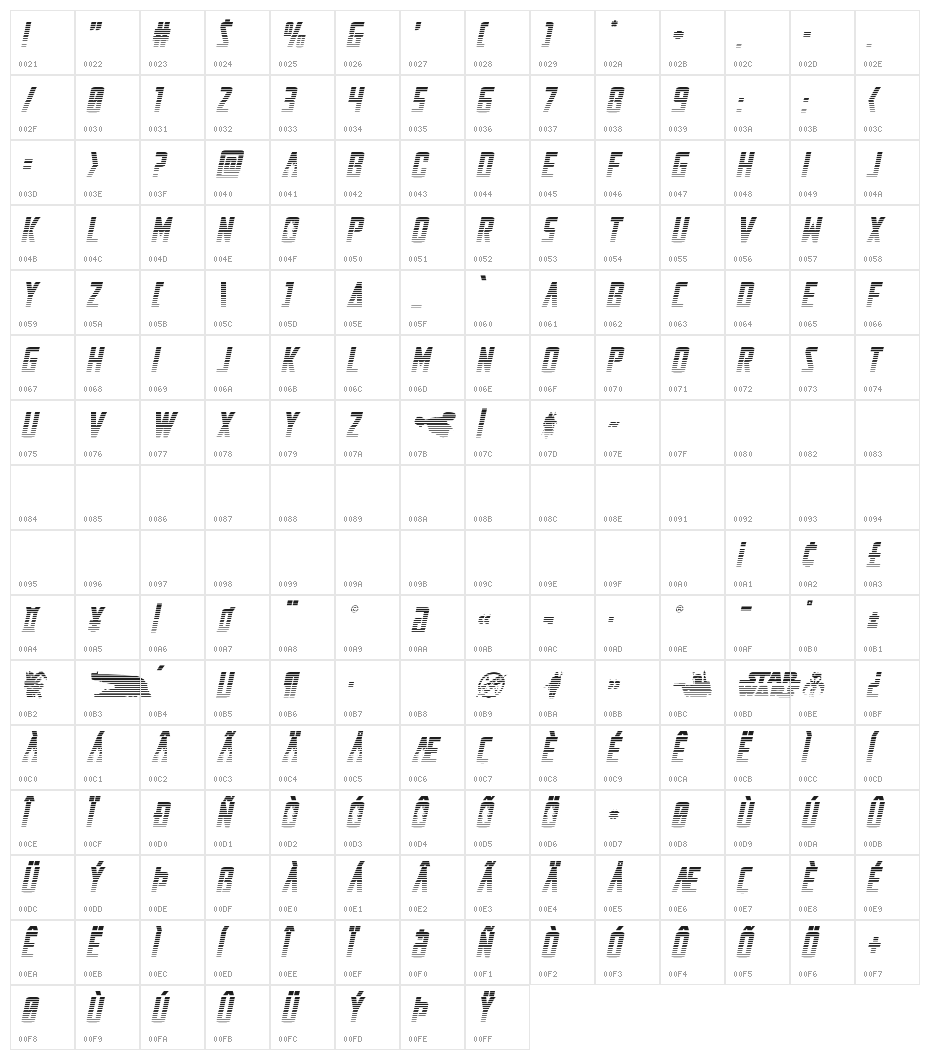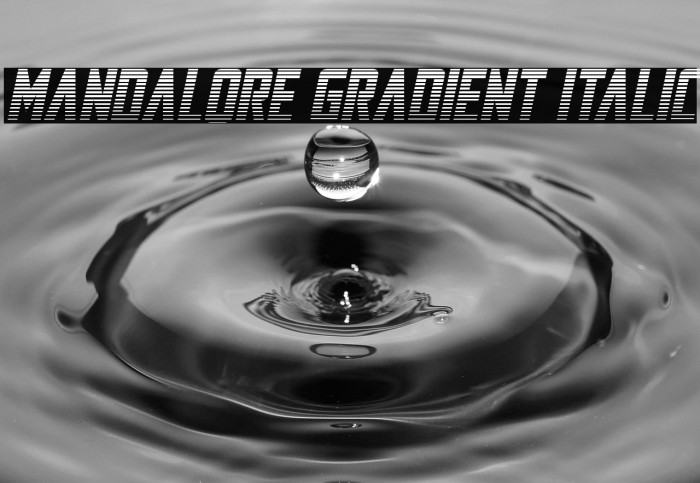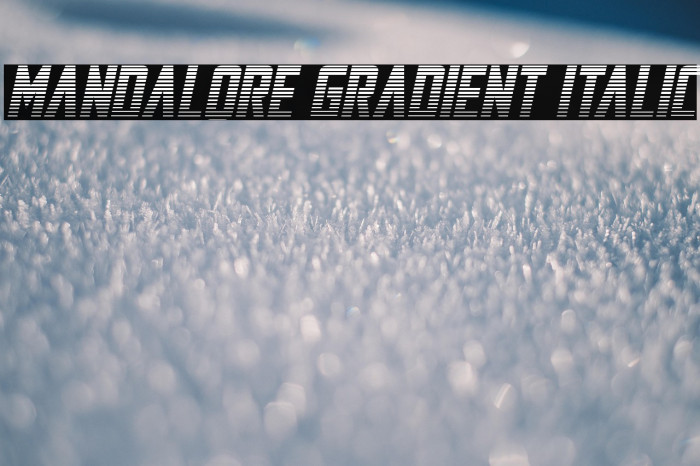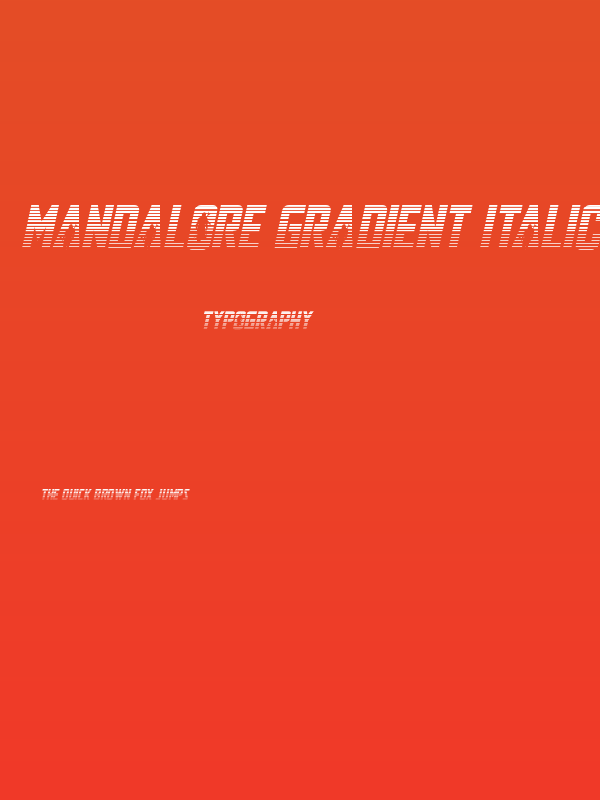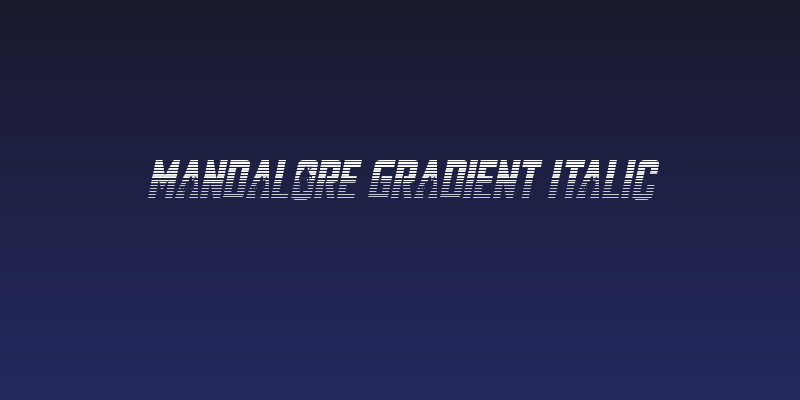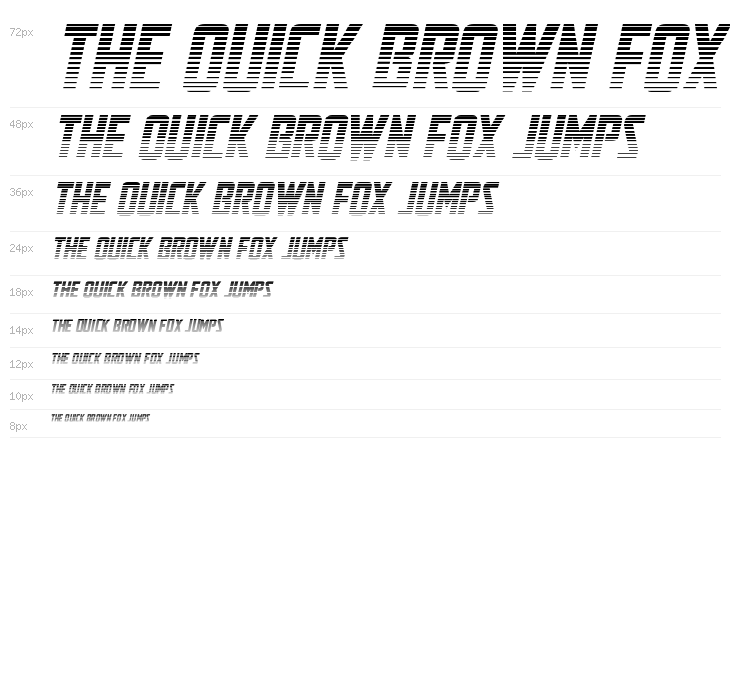
Mandalore Gradient Italic Font
Mandalore Gradient Italic Description
This font features a bold and dynamic design with a distinct gradient effect that gives it a futuristic and high-tech appearance. The italicized style adds a sense of motion and speed, making it ideal for projects that require a modern and energetic look. The characters are constructed with horizontal lines that create a striped pattern, enhancing its unique visual appeal. This font is particularly suitable for headlines, logos, and branding materials that aim to capture attention and convey a sense of innovation and forward-thinking. The uppercase and lowercase letters maintain a consistent style, ensuring a cohesive look across different text elements.